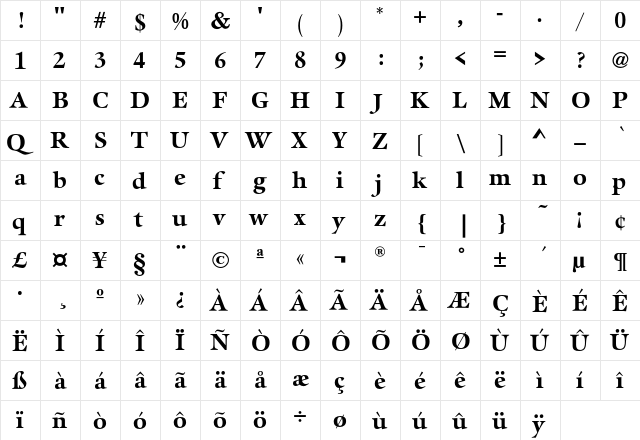
AureliaEF Bold
Design Context for AureliaEF Typeface
AureliaEF offers clean, dependable letterforms without strong stylistic allegiance, making it a practical choice for designers who need flexibility. The heavy weight commands attention and anchors typographic hierarchies.